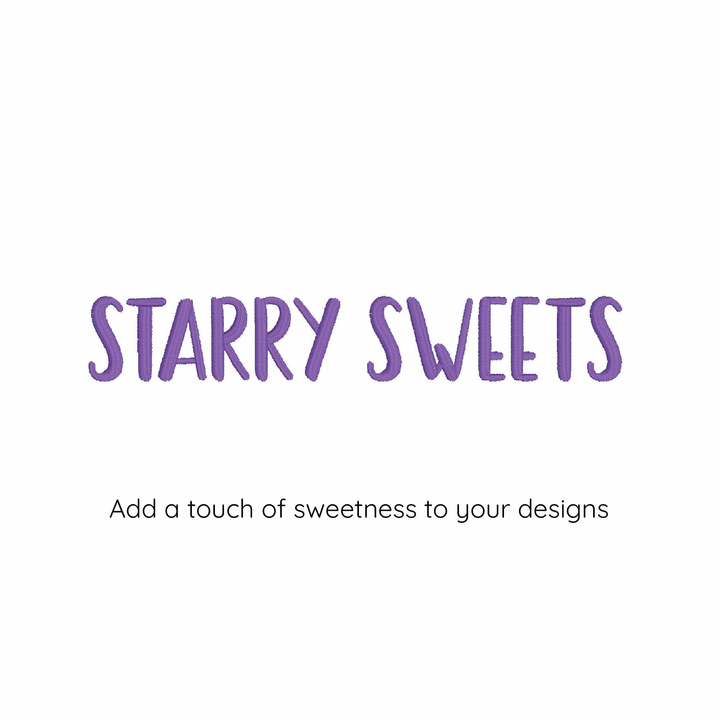
Photograph of Starry Sweets embroidery font
Photograph of Starry Sweets embroidery font alphabet
Starry Sweets Digital Embroidery Font
Add a touch of sweetness to embroidery projects with Starry Sweets